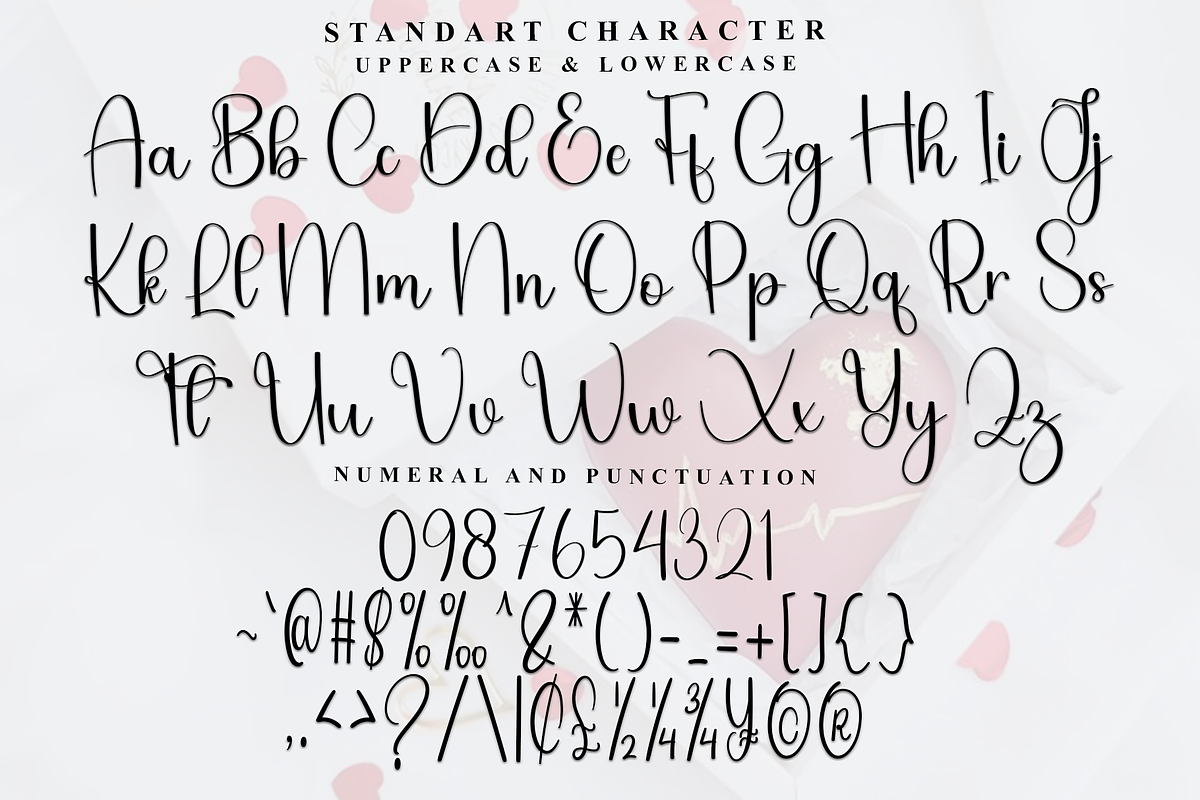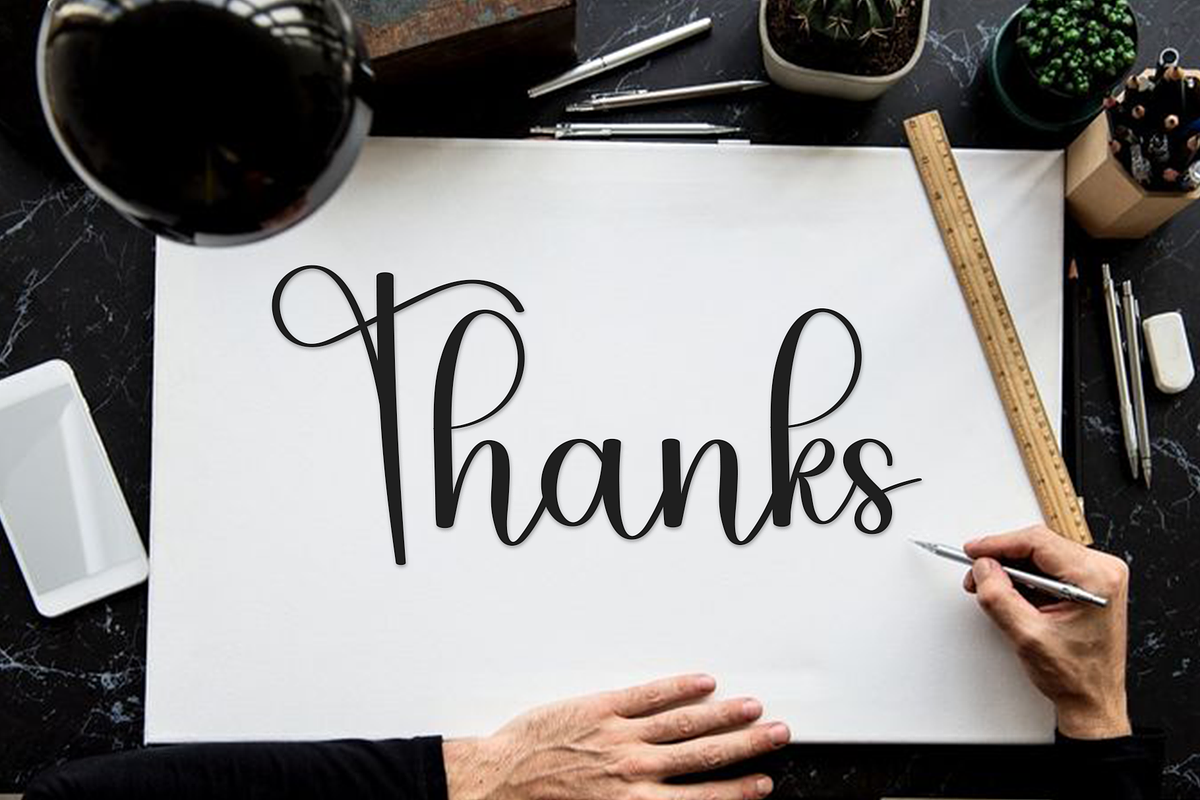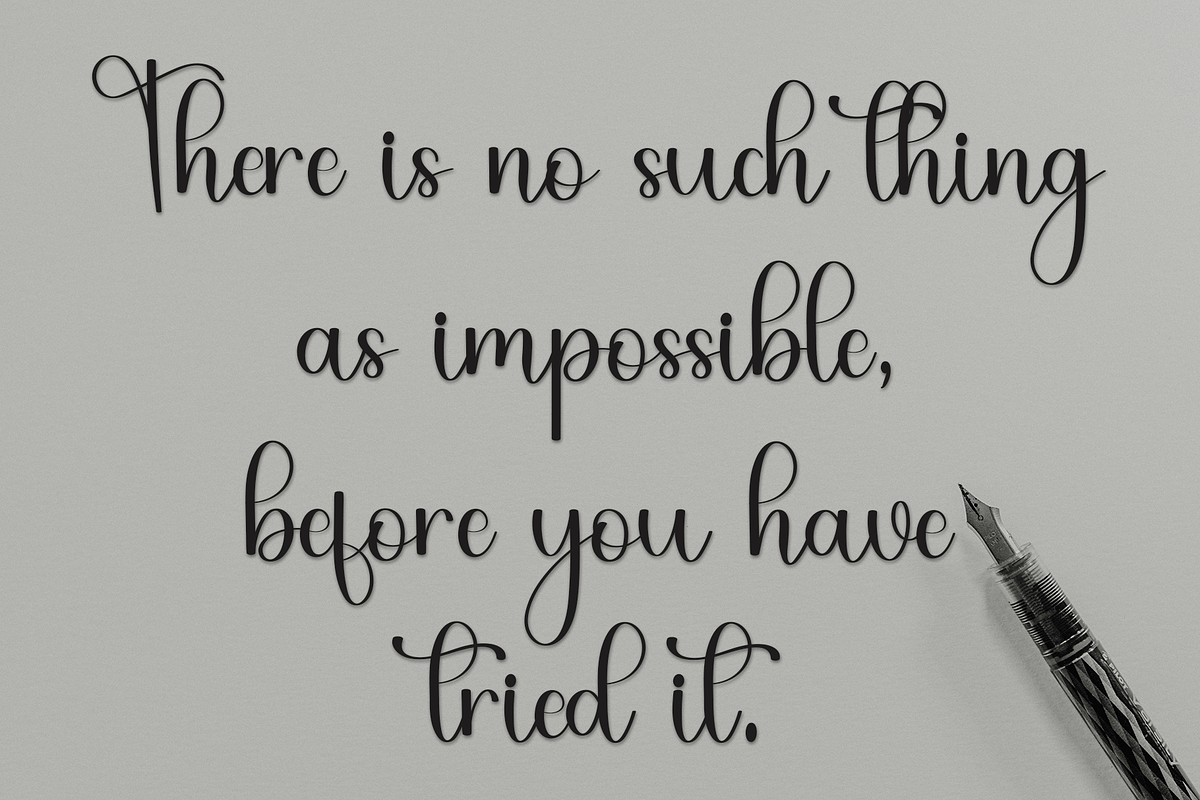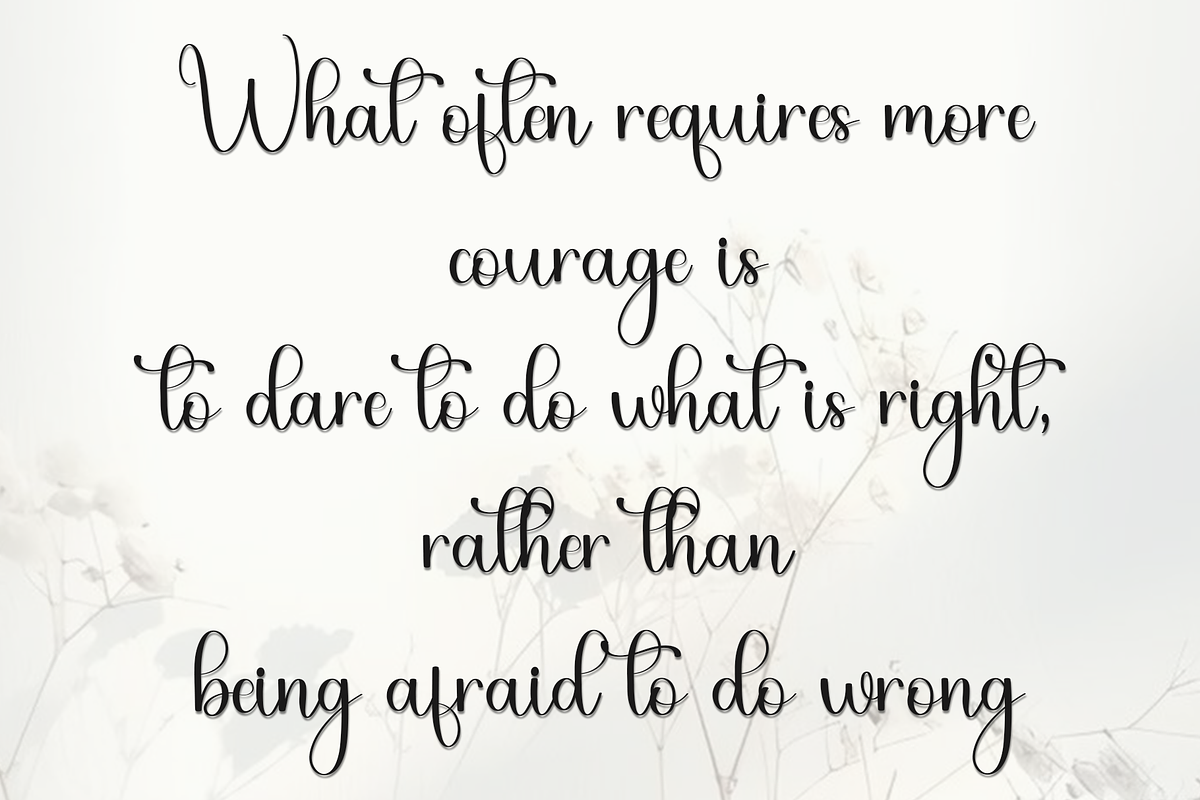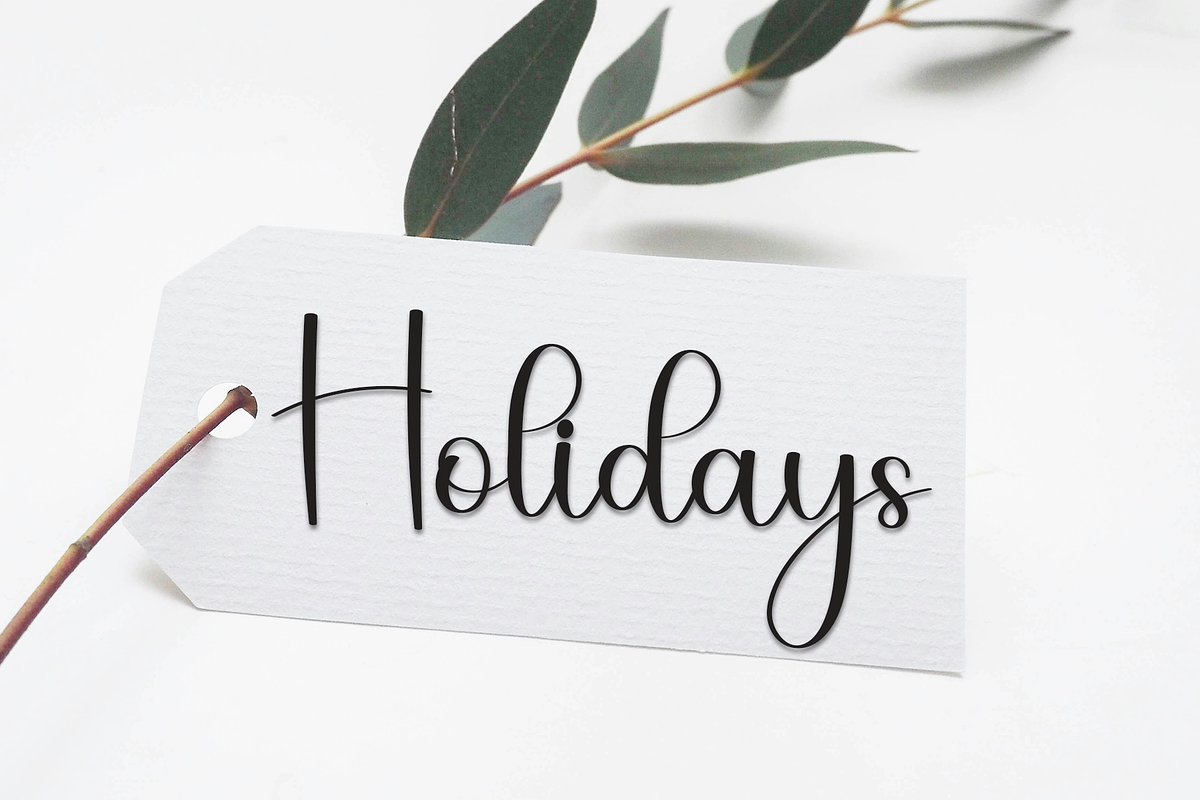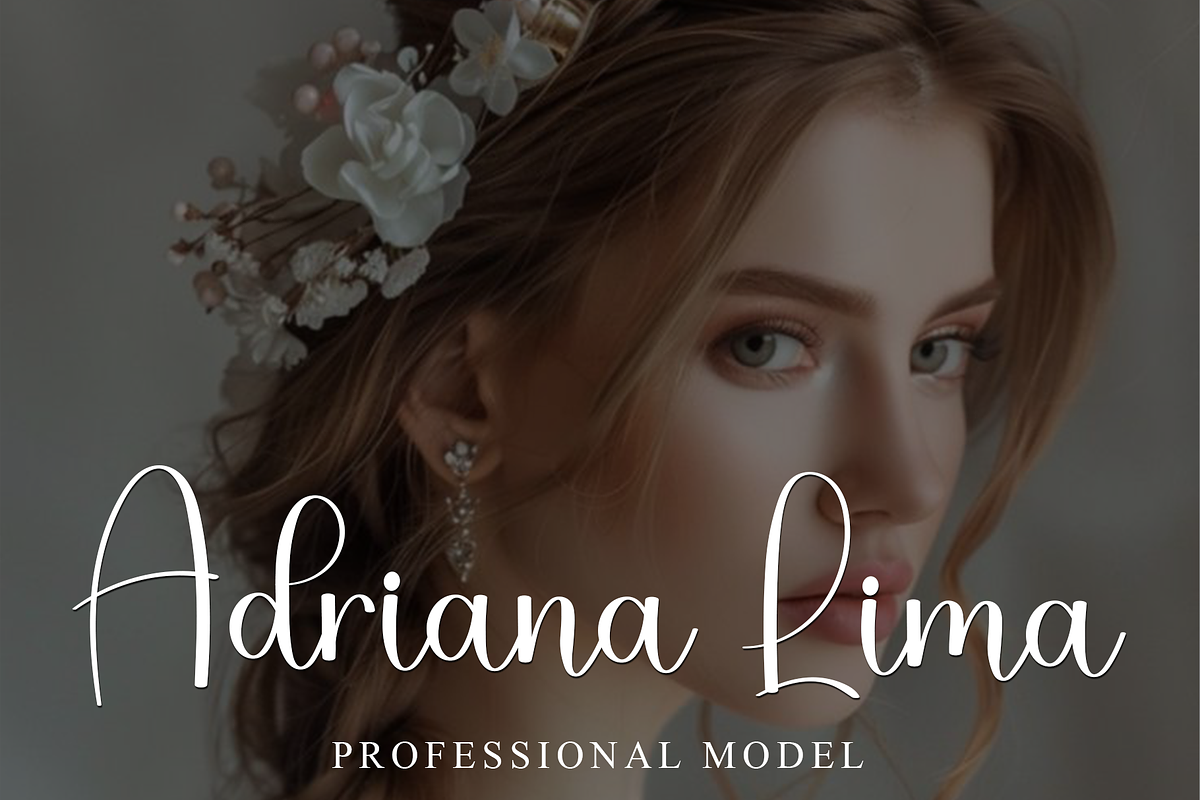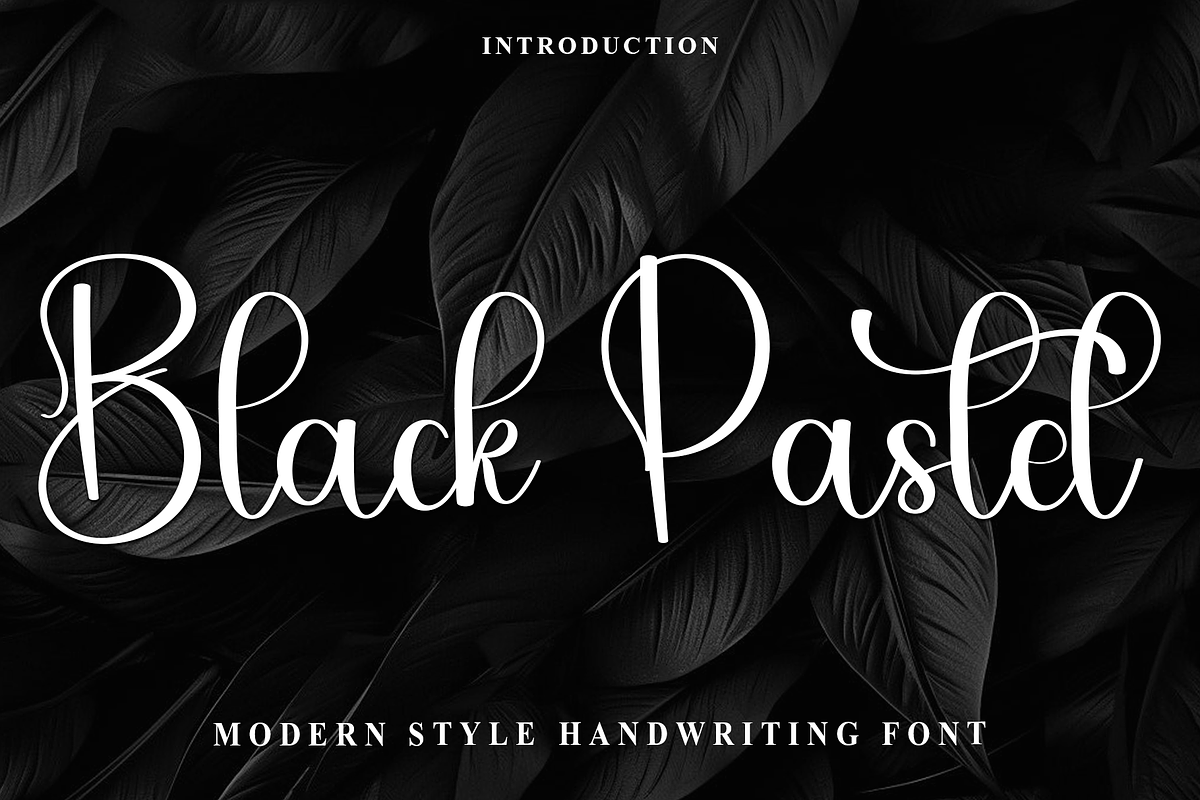
Black Pastel
Black Pastel is a beautiful and eye-catching font designed with a soft, unique touch. Its distinctive strokes give it a special character, making it meaningful and versatile for future use. With various characters, it’s perfect for design projects, crafts, and other creative works.